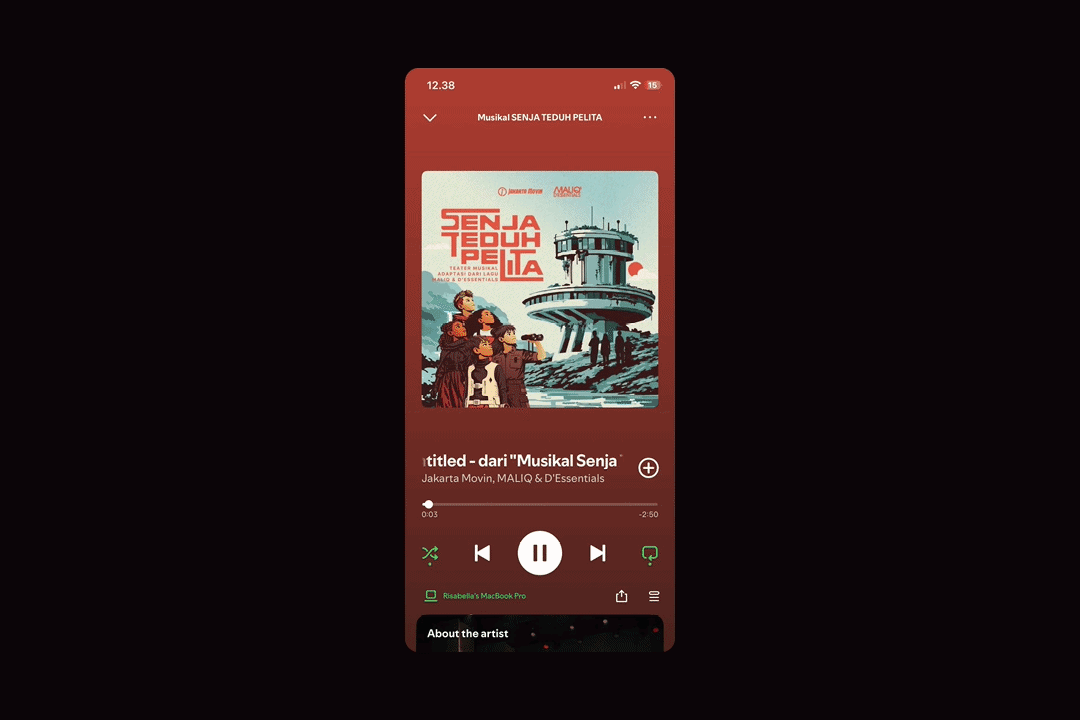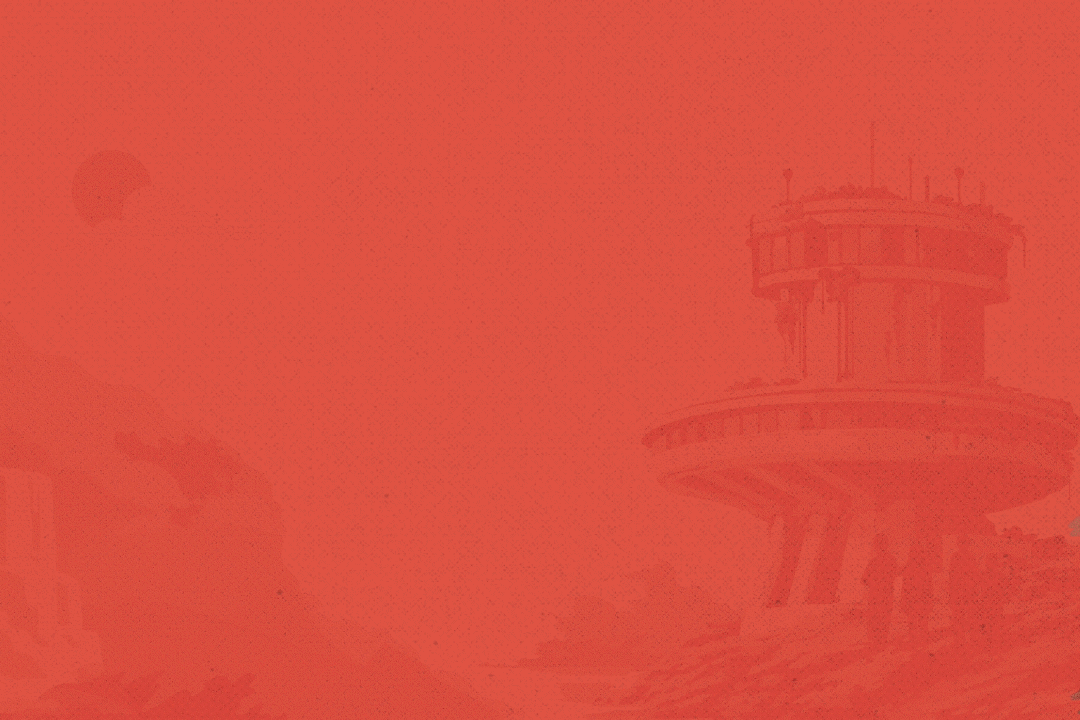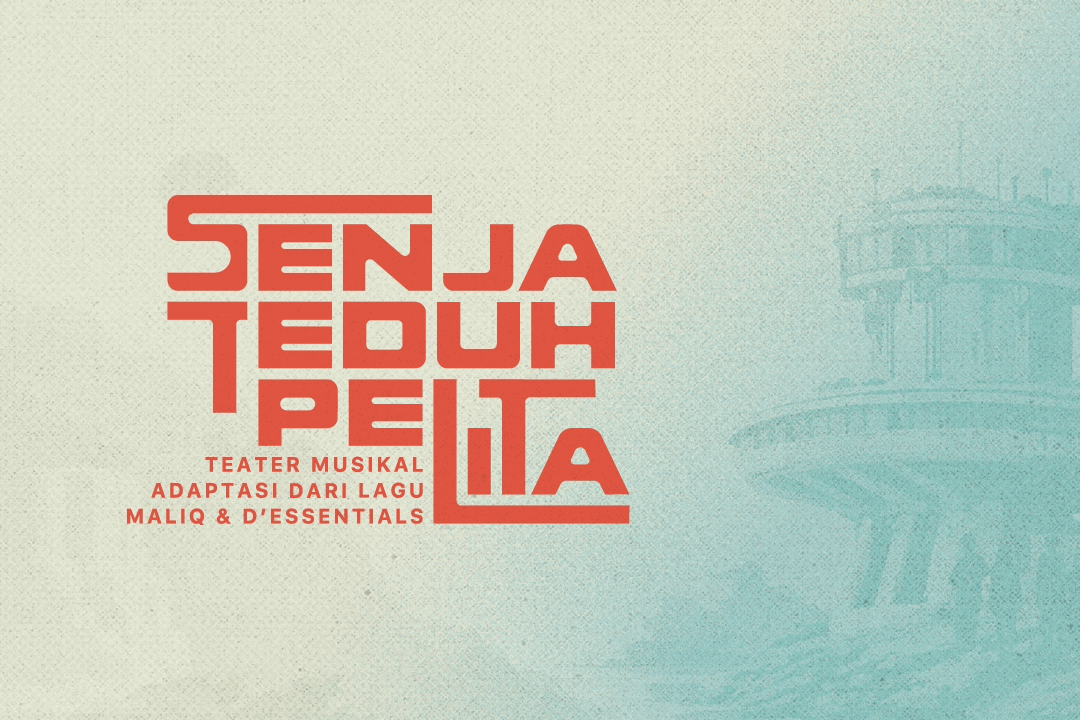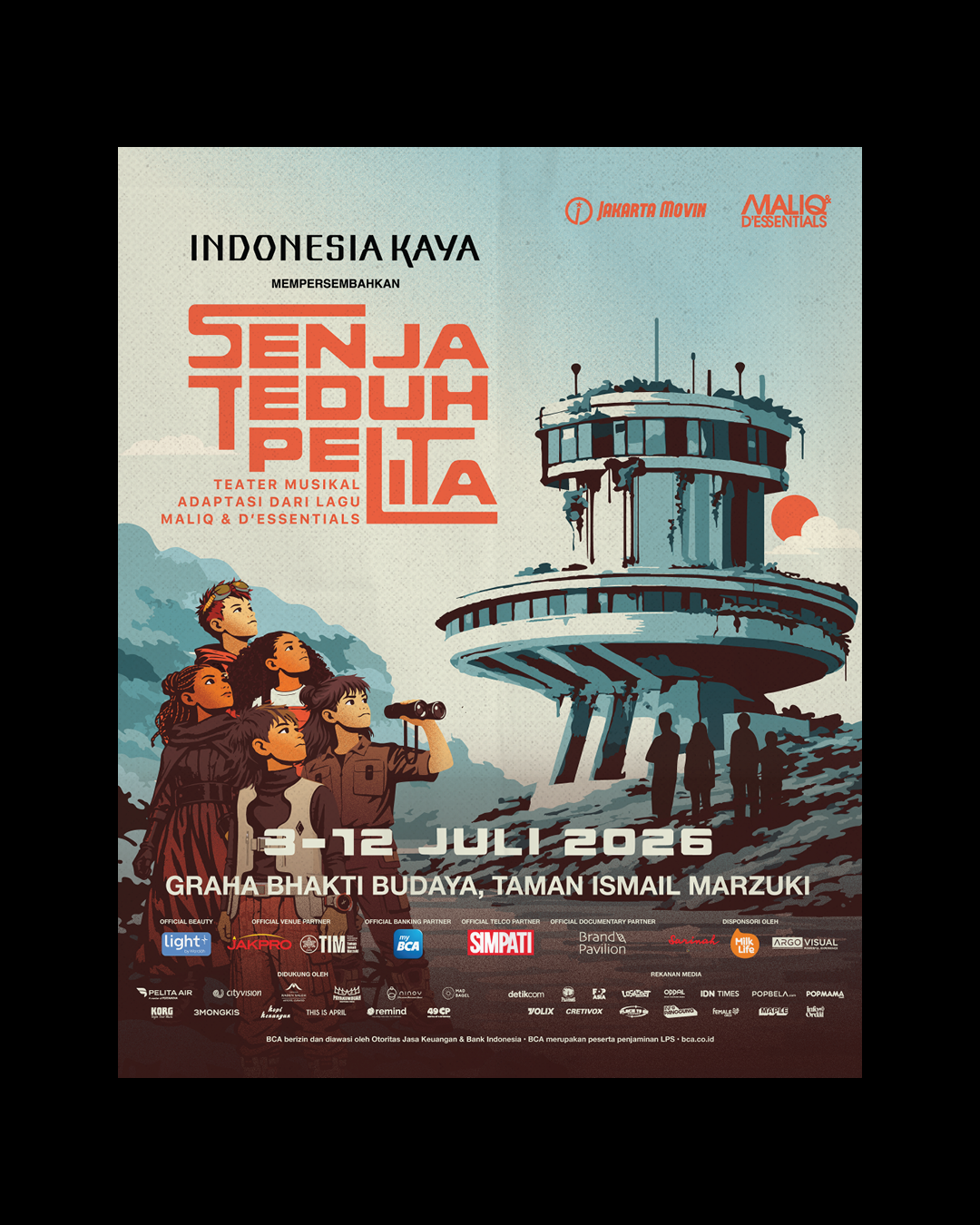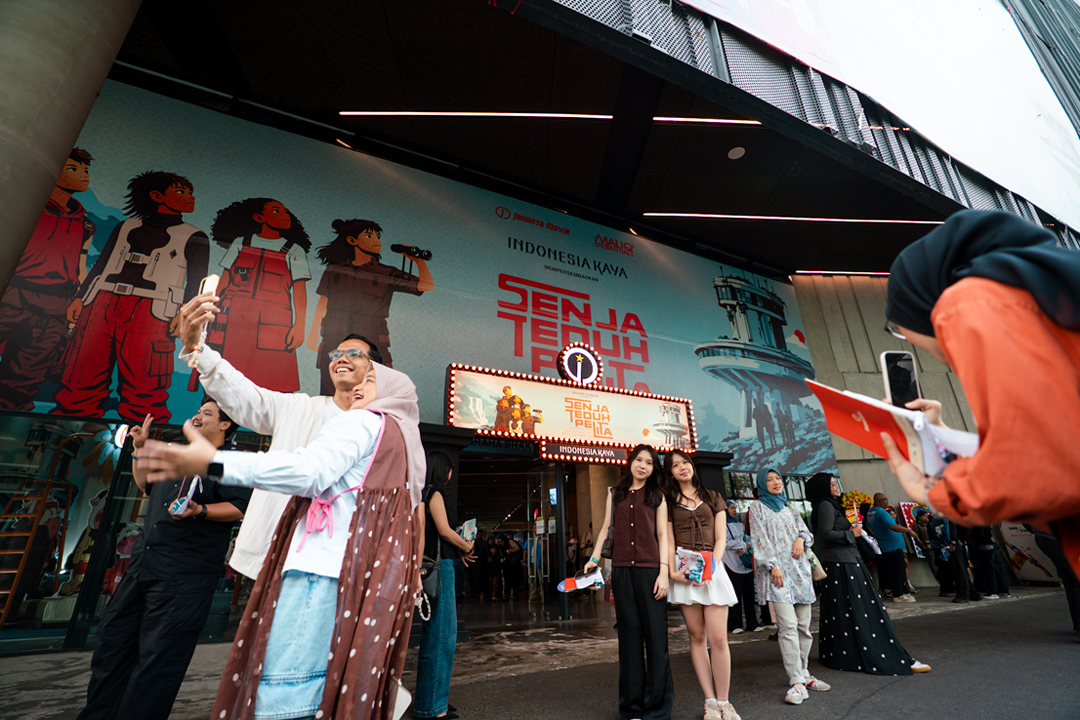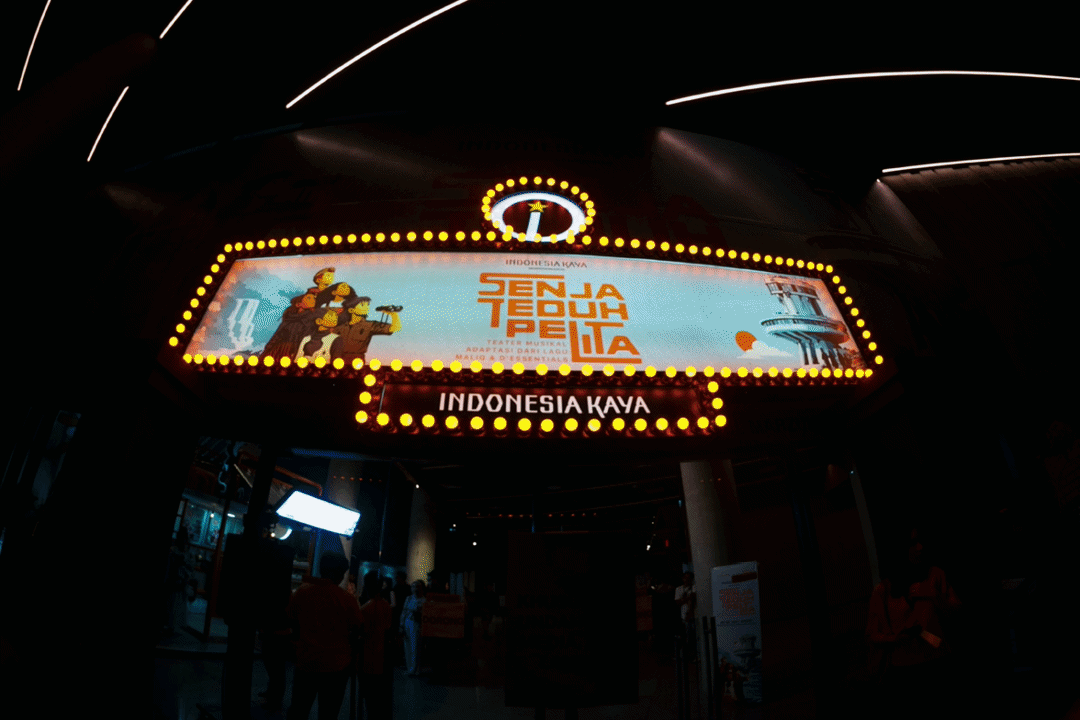
Senja Teduh Pelita
Deliverables: Brand identity, character illustration, poster design, typography, wayfinding, print collaterals
The Brief
Senja Teduh Pelita is an original science-fiction musical by Jakarta Movin in collaboration with MALIQ & D’Essentials, featuring adaptations of the band’s discography. The production ran 3–12 July 2026 at Graha Bhakti Budaya, Taman Ismail Marzuki, Jakarta.
The story follows five children left behind by adults who went to save a world broken by climate change, war, and failed development… and didn’t come back. Courage, science fiction, and self-reflection: three things the identity had to hold without flattening any of them.
The Work
The color system came directly from the source material. MALIQ & D’Essentials’ original song describes langit biru jadi jingga—blue sky turning orange. Blue and orange became the production’s palette as an act of fidelity to the song the whole production is built from.
The visual world was anchored in brutalist architecture. A civilization that built ambitiously and collapsed under its own decisions. Against that: five children. Arah the Navigator, Kala the Historian, Volta the Mechanic, Langit the Star Reader, and Hara the Florist. Each a different kind of intelligence the broken world needs. They are the identity’s primary visual language.
Typographic Decisions
Mid-century meets science fiction. A purely futurist typeface would have lost the warmth the production needed for children and families. A purely mid-century face would have read nostalgic in a story set in a broken future. The resolution: bold, rounded, structured. Friendly but serious. Accessible but not soft.
The System in Use
16 shows. The identity ran across every surface—entrance gate and dual signage panels, directory and wayfinding, parking guides and information boards, wristbands, banners, photo walls, digital ticketing platform, and the Spotify album cover. The system was built once and held everywhere.
25 seats went unsold across the entire run.